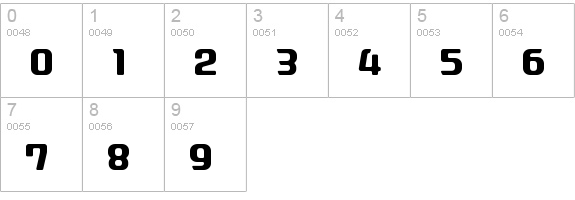
Stanley-Alphabet Font Details
Introducing Stanley-Alphabet, a stunning font that effortlessly combines elegance and versatility. This font is designed to make a bold statement while maintaining a sense of grace and sophistication. With its clean lines and exquisite details, Stanley-Alphabet is perfect for a wide range of creative projects. Whether you're designing a logo, crafting a wedding invitation, or creating eye-catching promotional materials, Stanley-Alphabet will elevate your work to the next level. Its timeless appeal and unique charm will captivate your audience and leave a lasting impression. But what's even better? Stanley-Alphabet is free! Yes, you heard it right. This incredible font is freely available to download at FontsMarket.com. Now, you can enhance your designs without breaking the bank. With Stanley-Alphabet, you can enjoy the freedom to create without any limitations. This font is meticulously crafted with careful attention to detail, ensuring flawless legibility at any size. Its extensive character set includes uppercase letters, lowercase letters, numerals, punctuation marks, and special characters, providing endless design possibilities. Whether you're looking for a classic serif font or a modern sans-serif, Stanley-Alphabet has got you covered. Experience the beauty and versatility of Stanley-Alphabet today. Download it for free at FontsMarket.com and unlock a world of creative possibilities. Let this font be your secret weapon in bringing your ideas to life. Don't wait any longer – take advantage of this incredible offer and elevate your designs with Stanley-Alphabet.